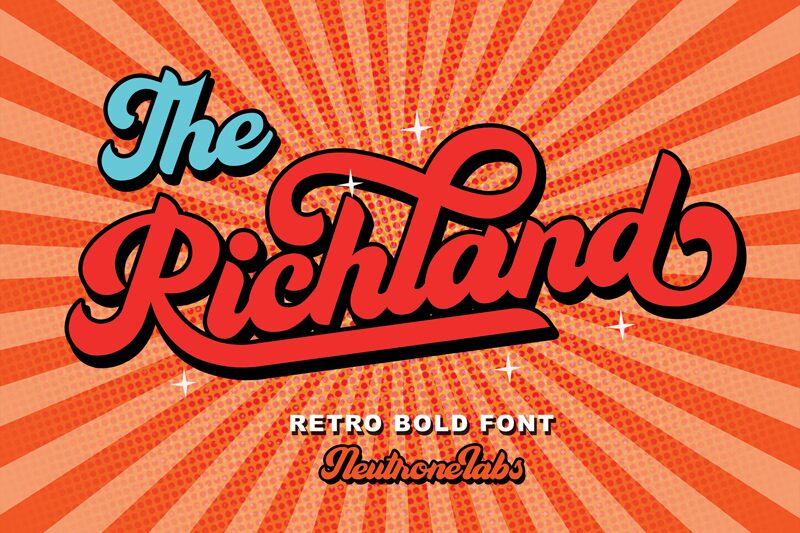
Introducing The Richland Bold - a retro script font by Kapri Prianto. It's bold character and nostalgic style makes it perfect for creating logos, poster designs, and modern packaging with a vintage feel.
The Richland
Kapri Prianto